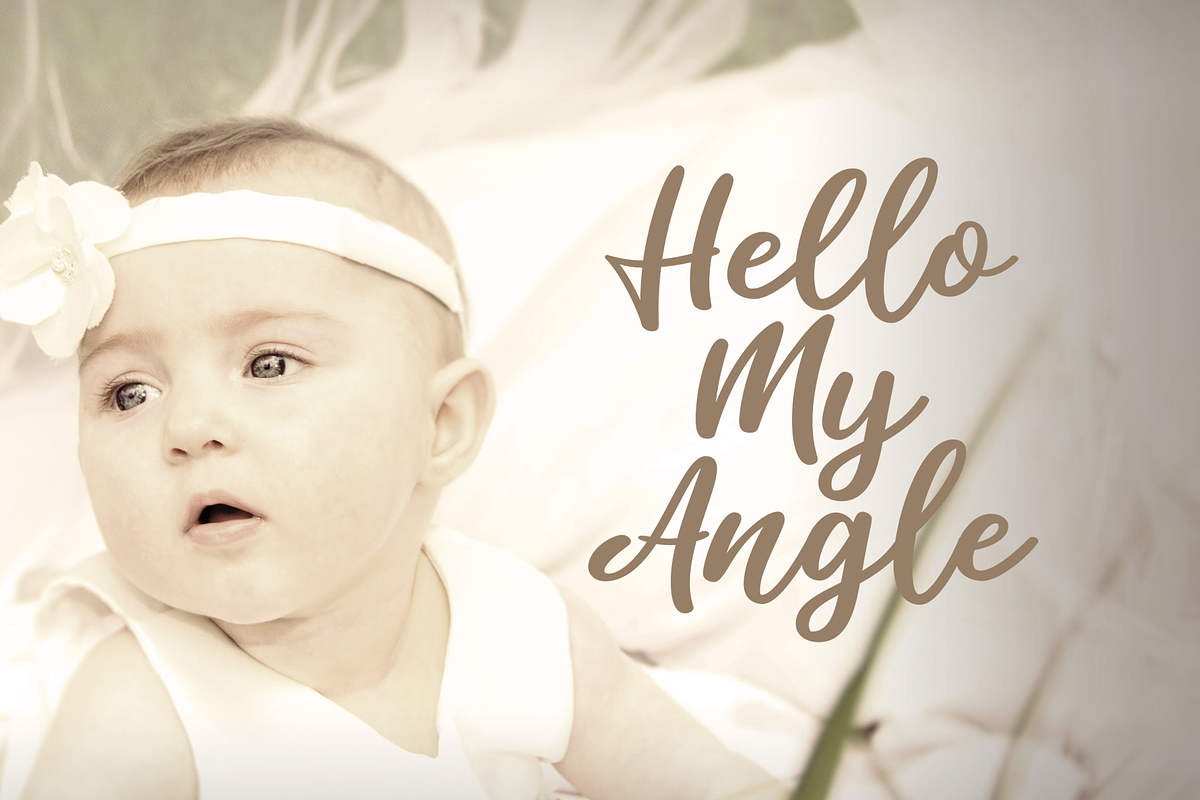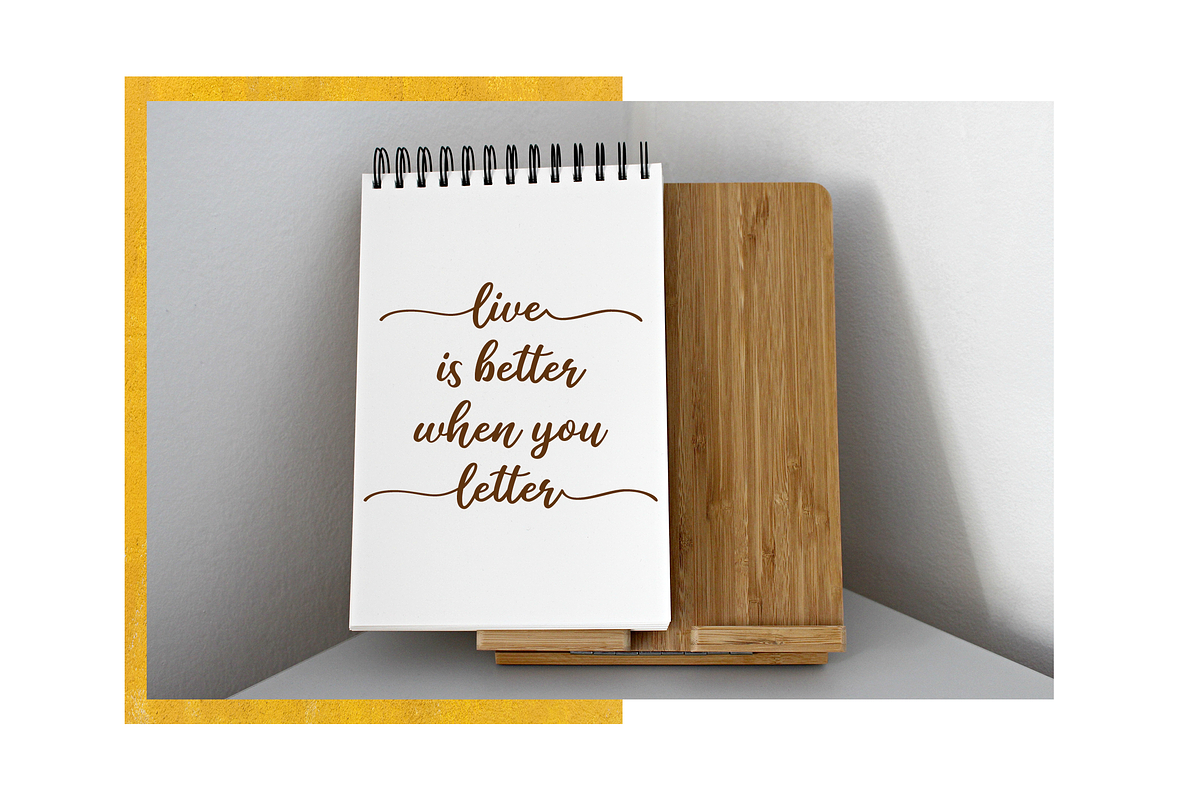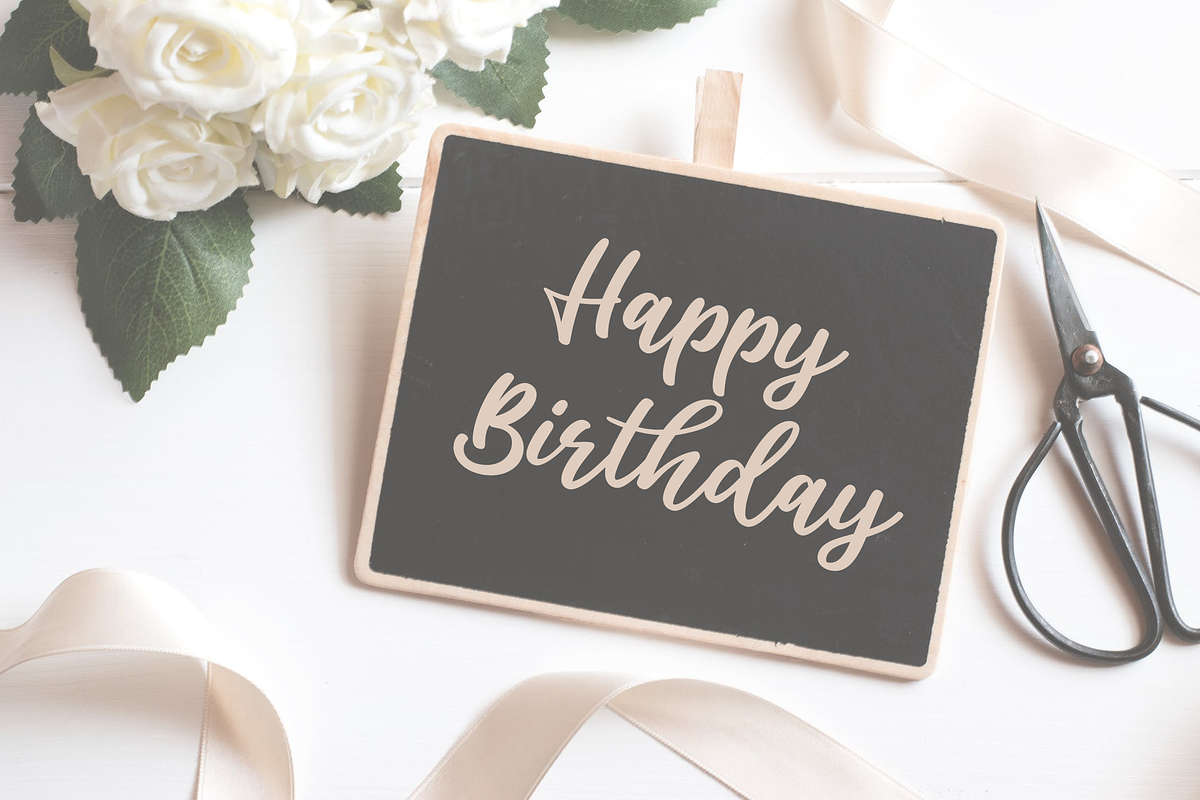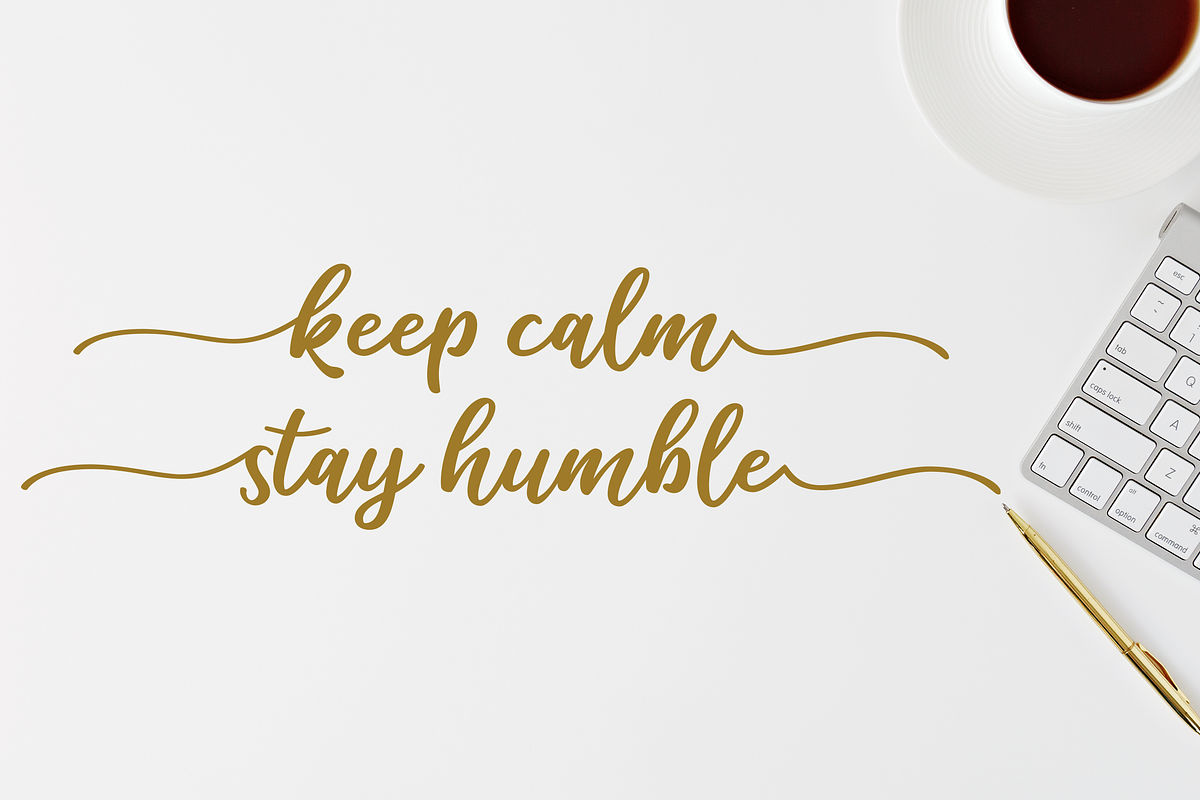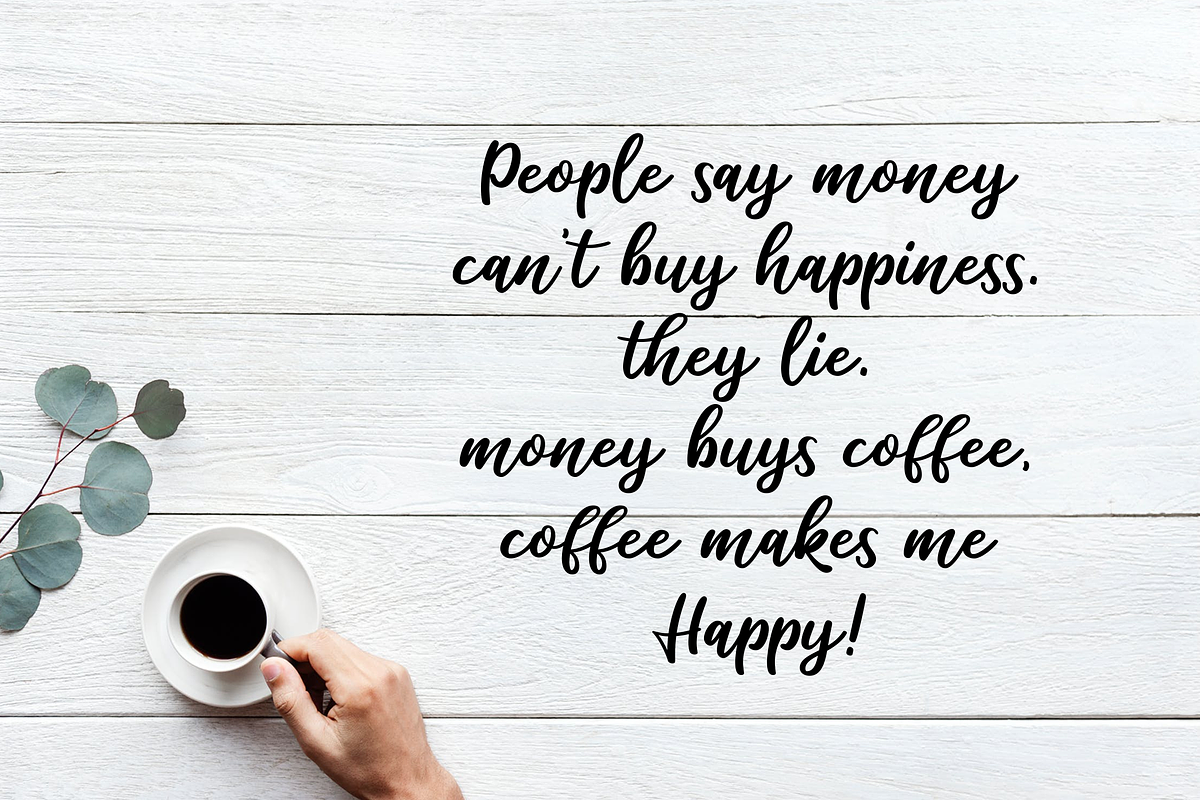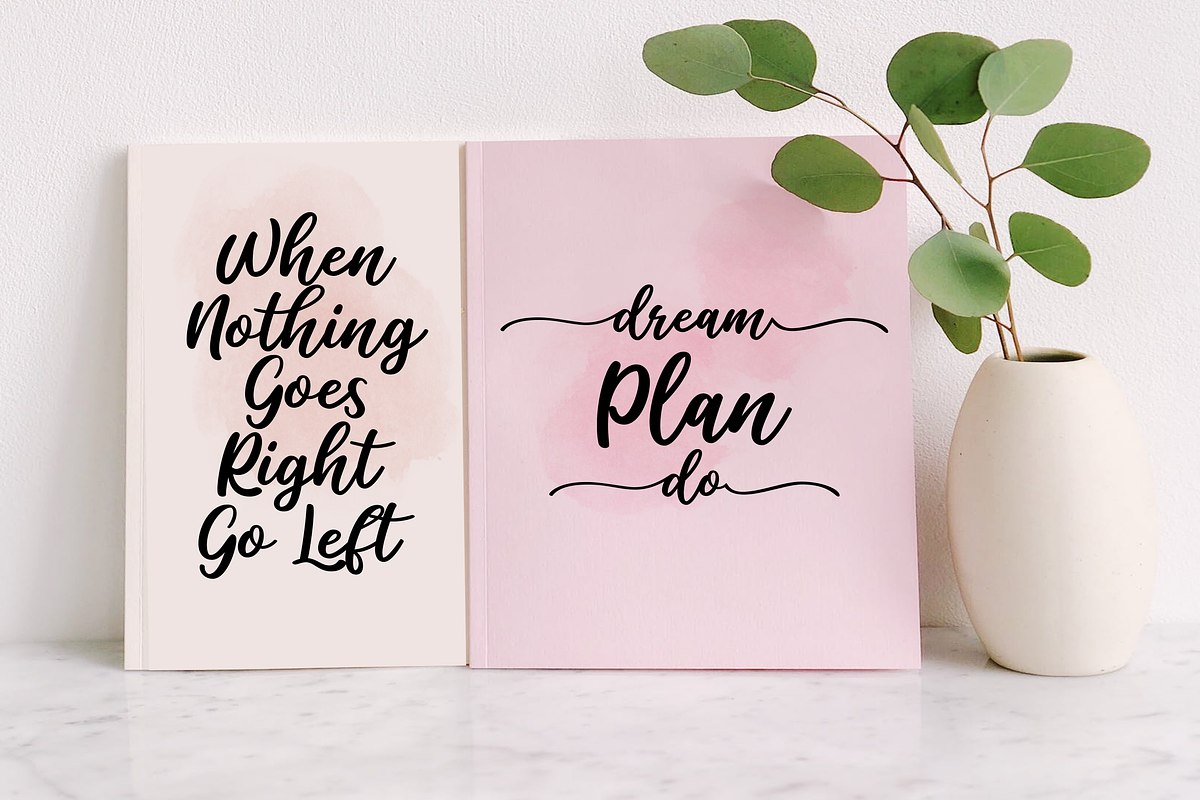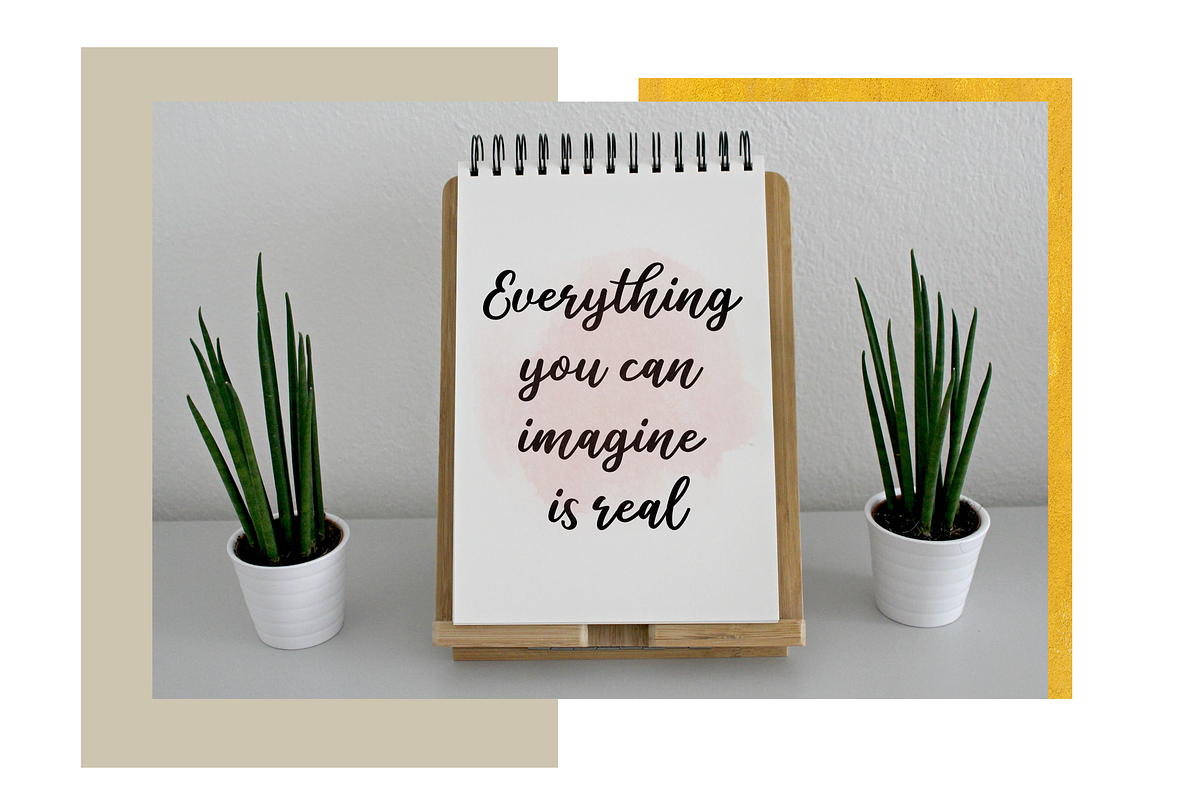
Salika // Bold Script Font
Salika is a delicate and charming handwritten font with a bold feel. Use it to add a sophisticated spark to any design project
Salika // Bold Script Font by Bluestudio fits naturally into Branding, posters, packaging, typography.